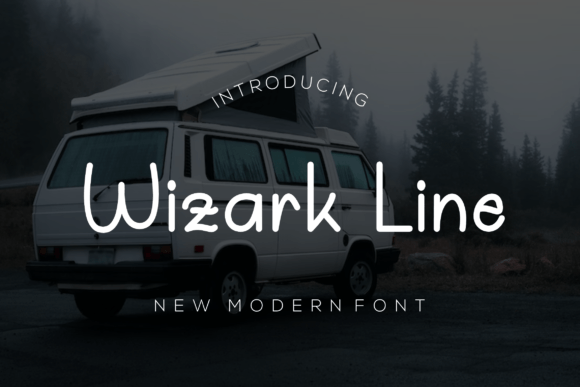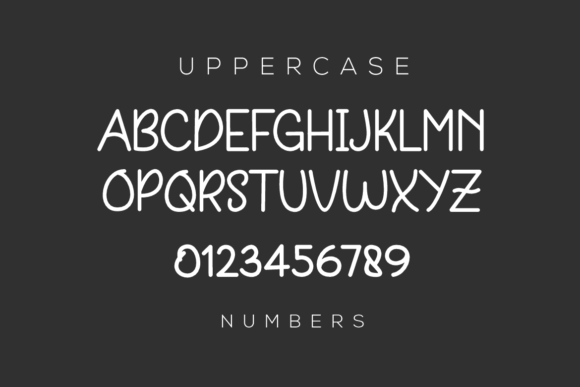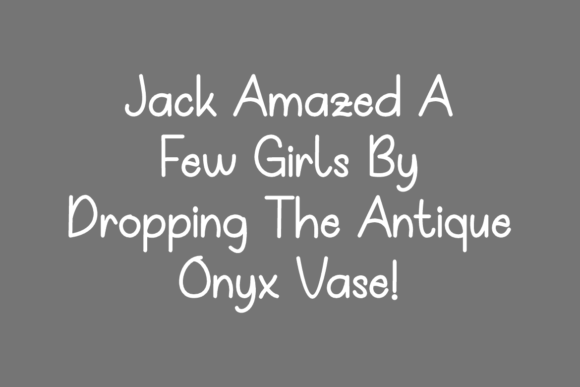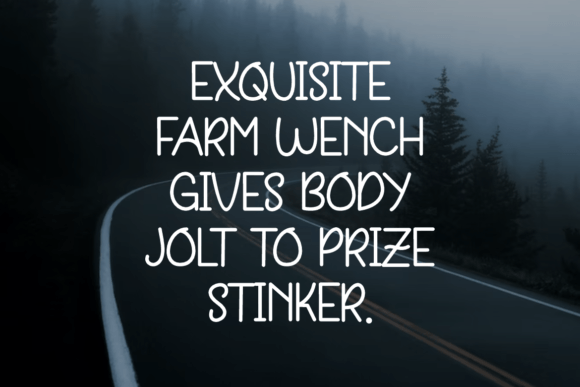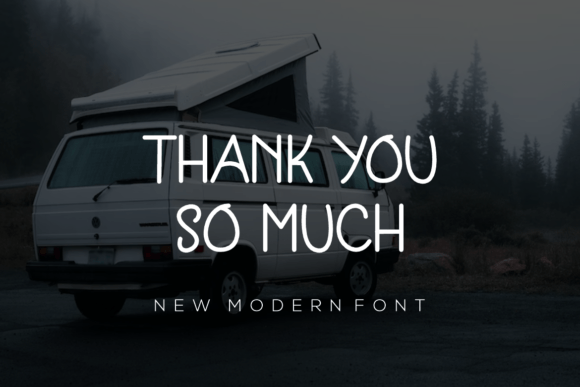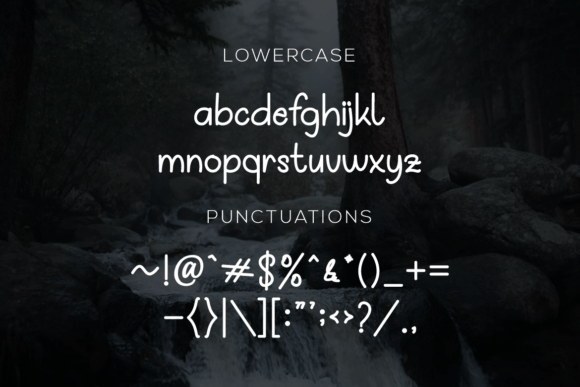
Wizarkline Font
About Wizarkline Font
WizarkLine is a lovely handwritten font that feels beautiful, classy, elegant, and modern. This font is perfectly suited for a wide variety of projects such as signature, stationery, logo, wedding, typography quotes, magazine or book covers, website headers, clothing, branding, packaging design, and more.